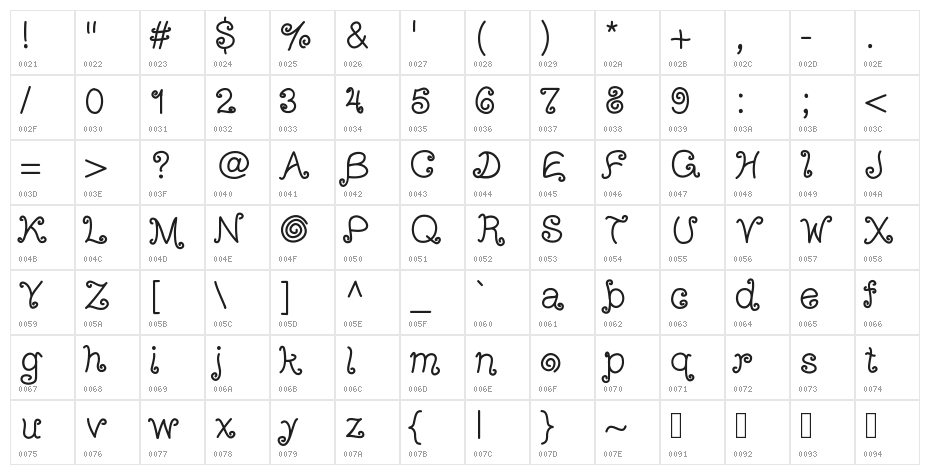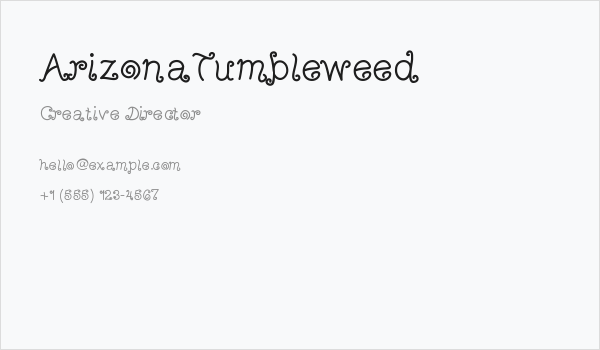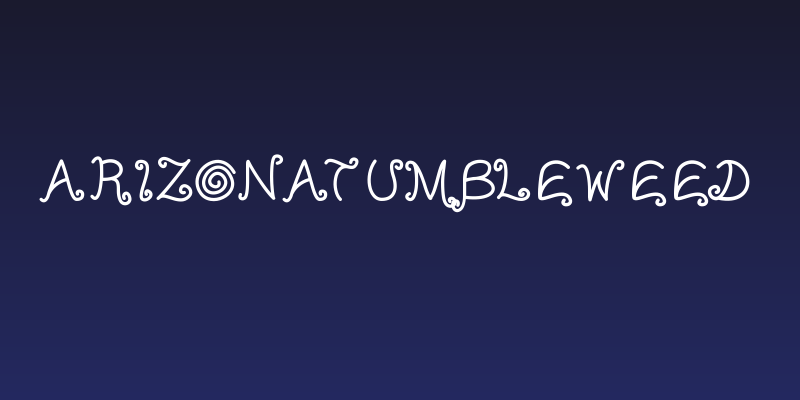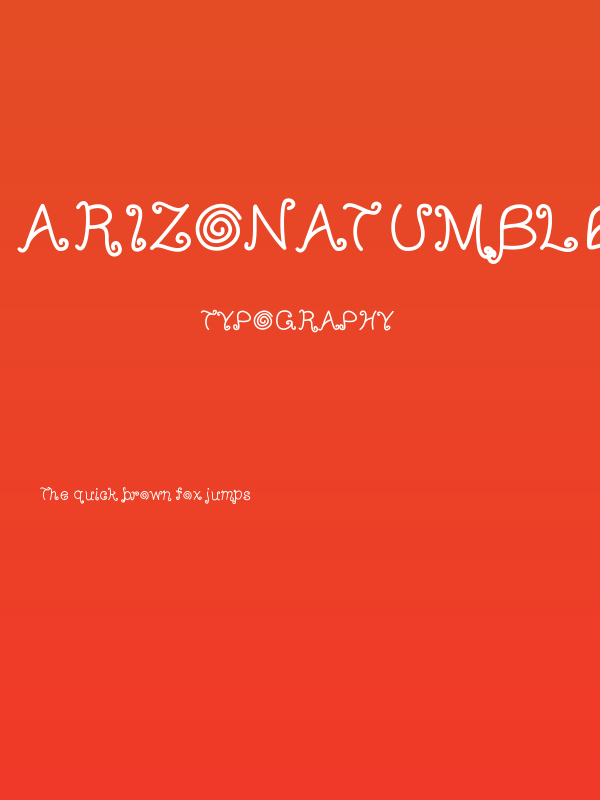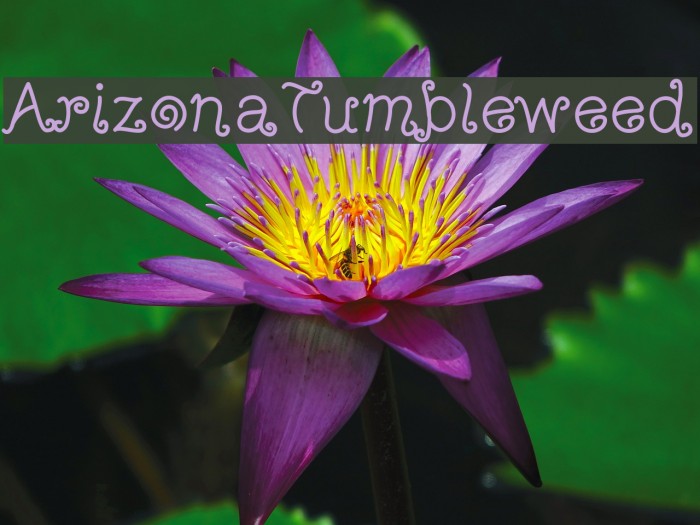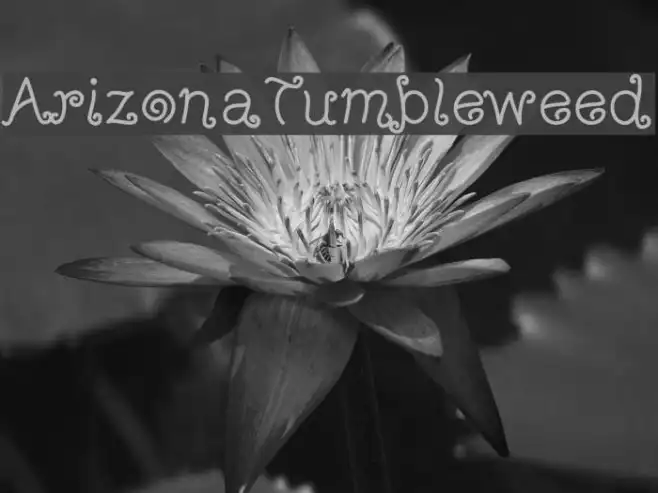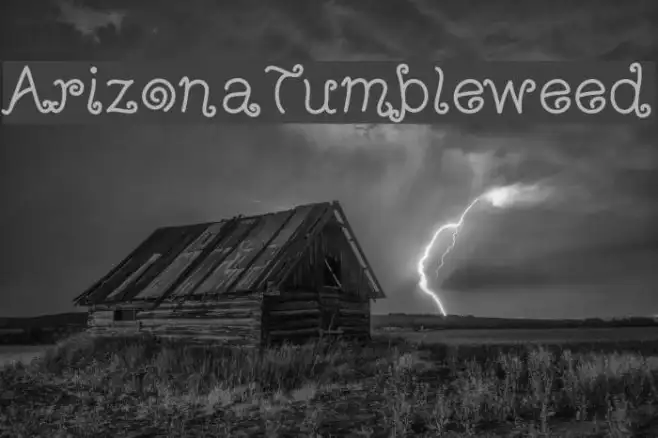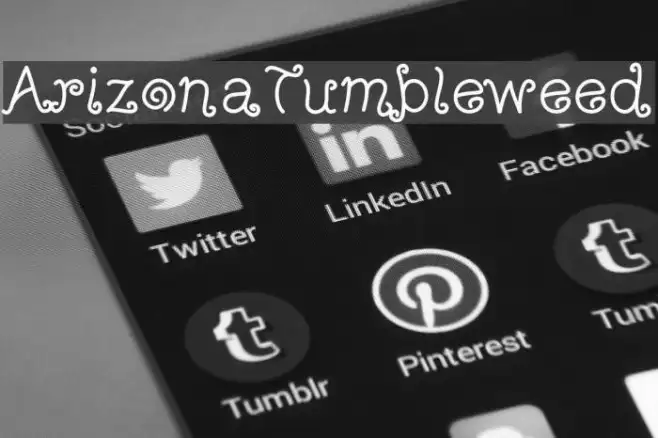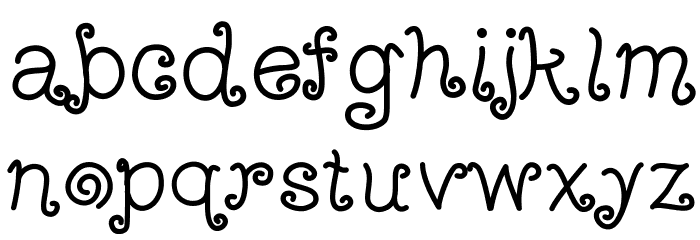
ArizonaTumbleweed Font
ArizonaTumbleweed Description
This font features a whimsical and playful design with curly, decorative elements that give it a unique and artistic flair. The characters are bold and have a hand-drawn quality, with each letter incorporating swirls and loops that add to its charm. The uppercase and lowercase letters maintain a consistent style, while the numbers and special characters are equally ornate, making the font suitable for creative projects. Its distinct style is reminiscent of a vintage or retro aesthetic, perfect for adding a touch of personality to any design.
| Overall Style | Vintage, Decorative |
| Proposed Projects | Ideal for greeting cards, invitations, posters, and creative branding projects. |